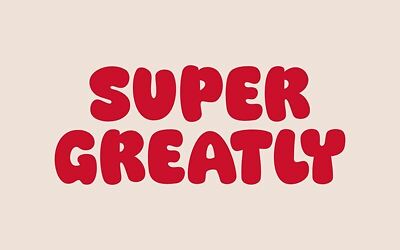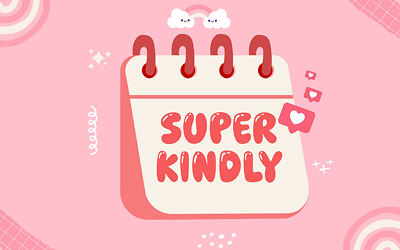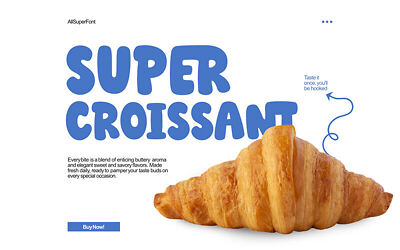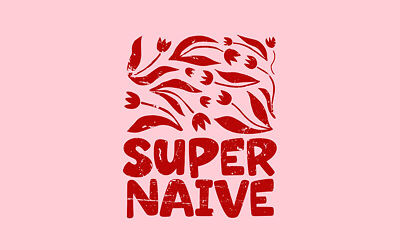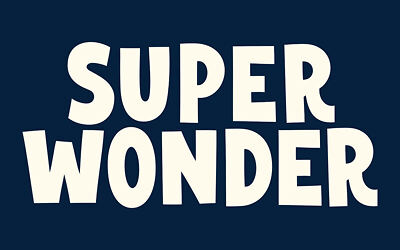
Super Comic is a hand crafted cartoon font filled with a cheerful, bold vibe. The font is perfect for anything from comics and posters to games and children’s books. Add a playful and quirky touch to your designs with Super Comic font.